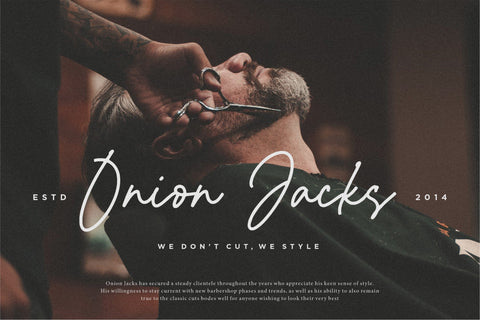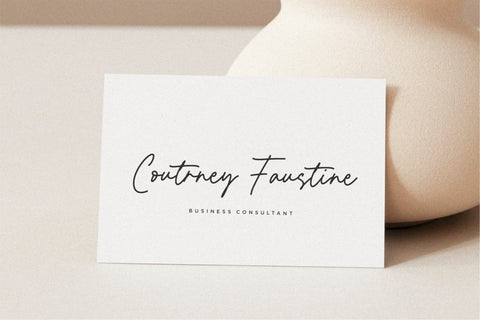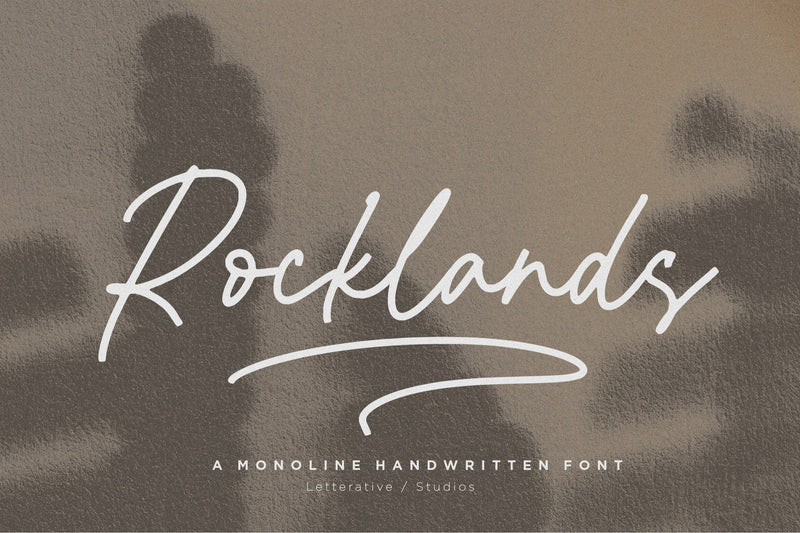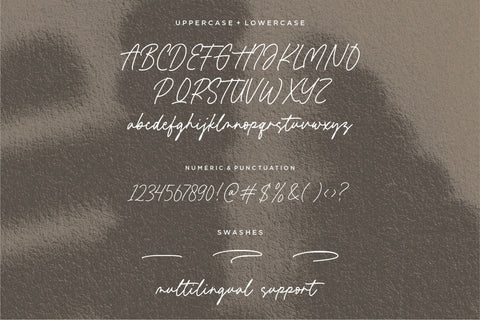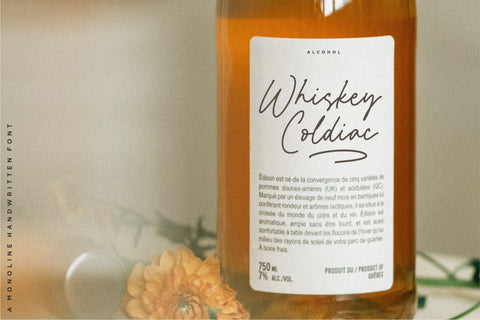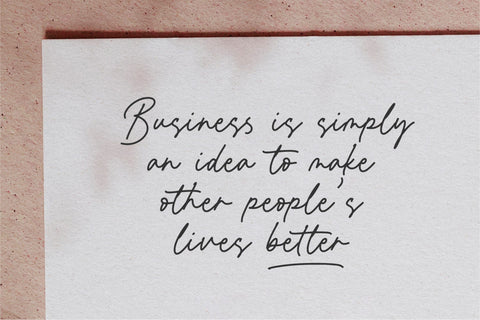
Rocklands Monoline Handwritten Font
Introducing by Letterative Studio : Rocklands Font
Rocklands is a Monoline Handwritten Font
Rocklands is a Monoline handwritten font. Whether you’re using it for crafts, digital design, presentations, or making greeting cards, this font has the potential to become your favorite go-to font, no matter the occasion!
- Swash